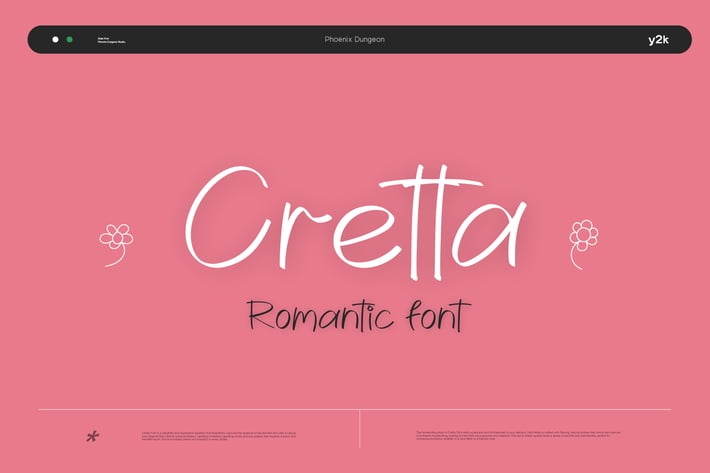
Cretta Font
Cretta Font is a delightful and expressive typeface that beautifully captures the essence of handwritten text with a casual, love-inspired flair. Ideal for personal letters, wedding invitations, greeting cards, and any project that requires a warm and heartfelt touch, this font exudes charm and sincerity in every stroke.